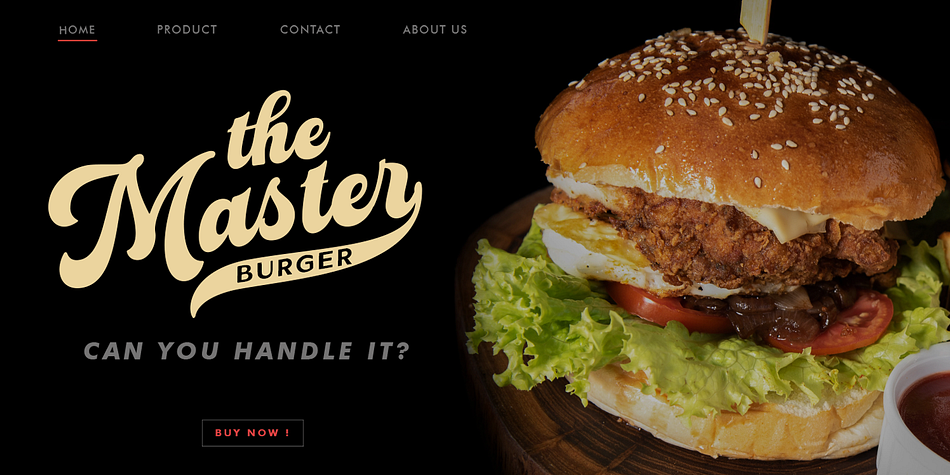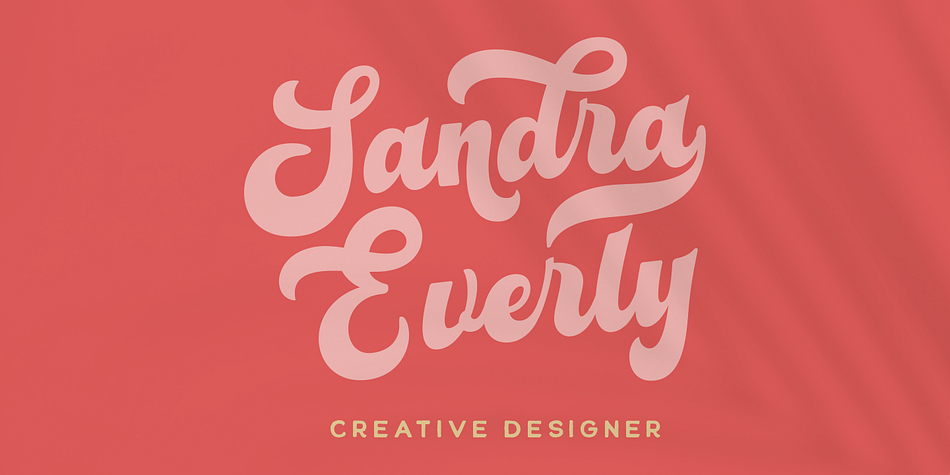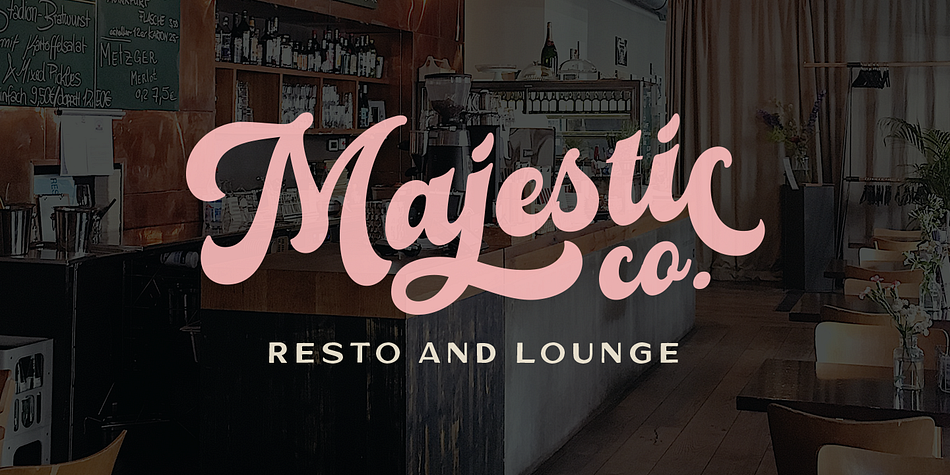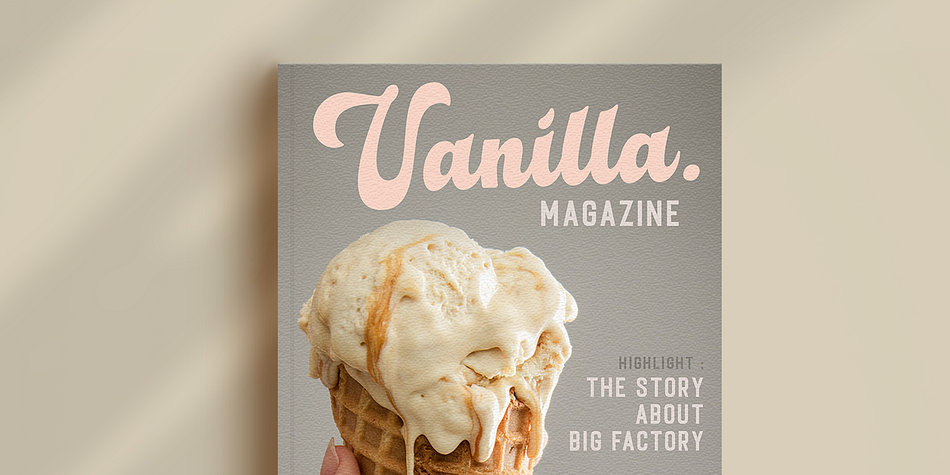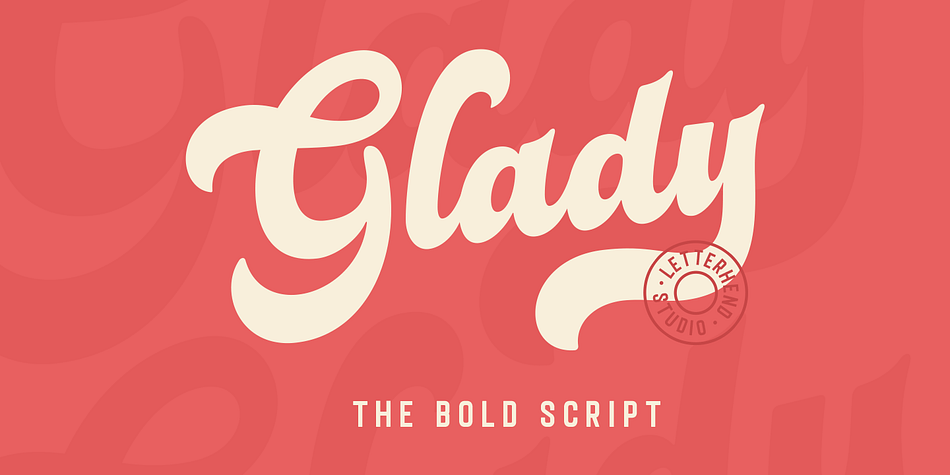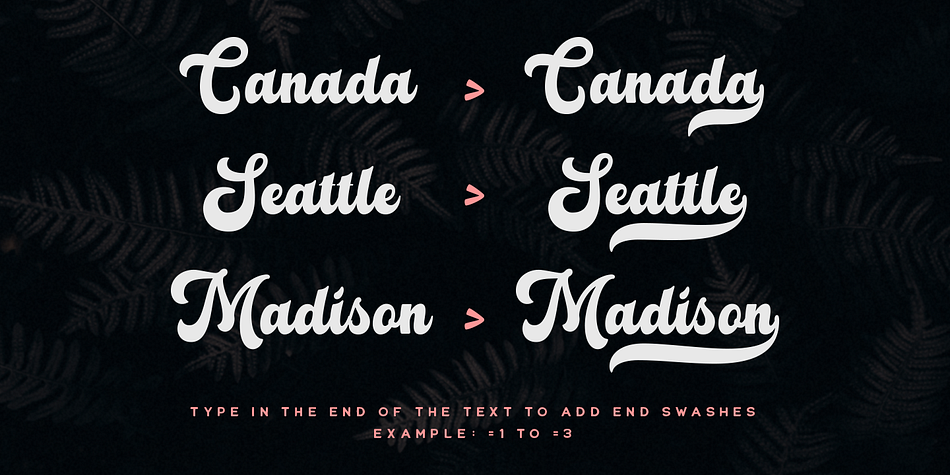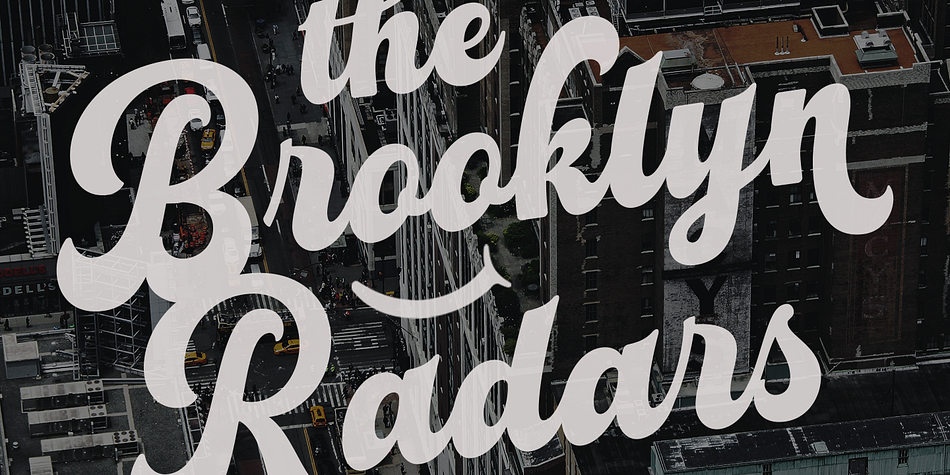
Designed by Hendry Juanda, Glady is a script font published by Letterhend Studio.
Introducing, Glady - A bold script based with standout look. Added with swashes to make this font even more unique. This type of font perfectly made to be applied especially in wedding invitation, labels, logos, magazines, books, greeting / wedding cards, packaging, fashion, make up, stationery, novels, labels or any type of advertising purpose.
- swash and ligature
- alternates